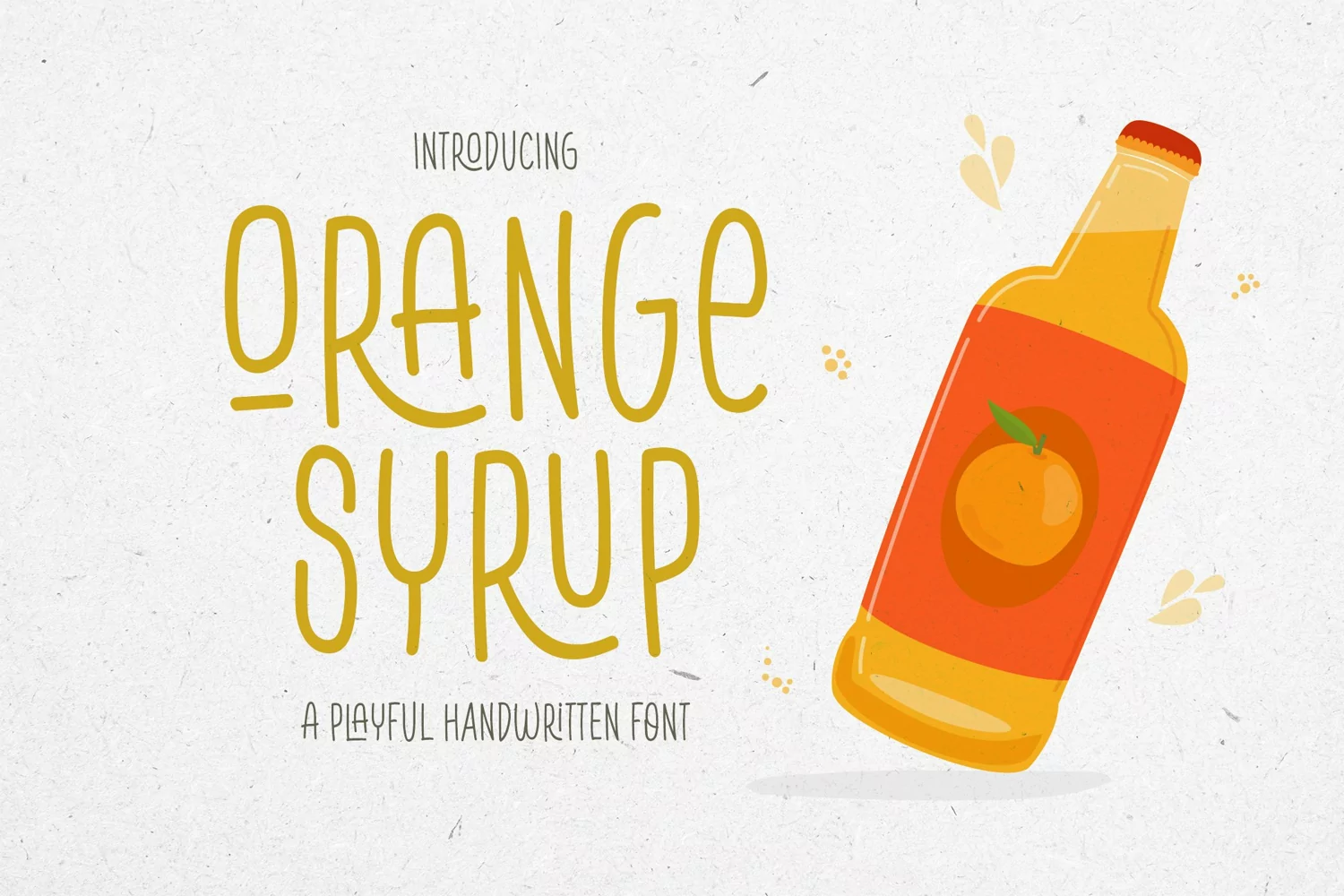
Do you need a font that's perfect for Fun projects? Orange Syrup is the Right Choice
Orange Syrup is a Fun and Playful Handwritten Font that's perfect for Headline, Quotes, Poster, etc for Display need. This font specially crafted for your design projects such as banner, poster, flyer, website design, product packaging, merchandise, pillow print and so many more with easy to use but standing out results are so playful.
Enjoy to Design any your needs with stand out, unique, and fun feels.